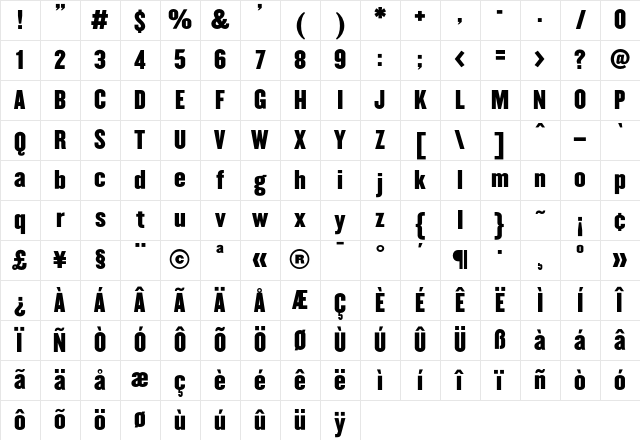
Champion HTF-Welterweight Free Font
Champion HTF-Welterweight
Style: HTF-Welterweight
Complete Champion HTF-Welterweight glyph index. Displaying only characters natively supported by Champion HTF-Welterweight font.
Design Context for Champion
Champion is a composed and adaptable typeface that performs quietly and consistently across a wide range of design contexts.